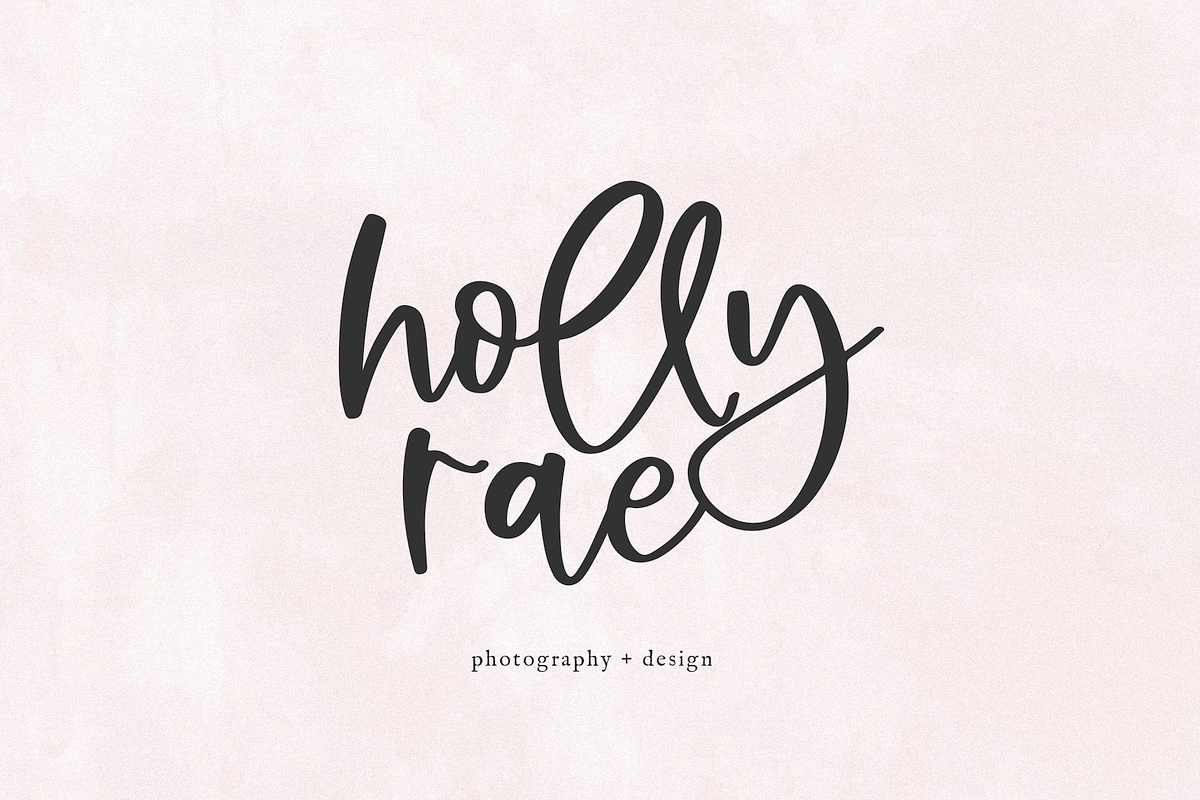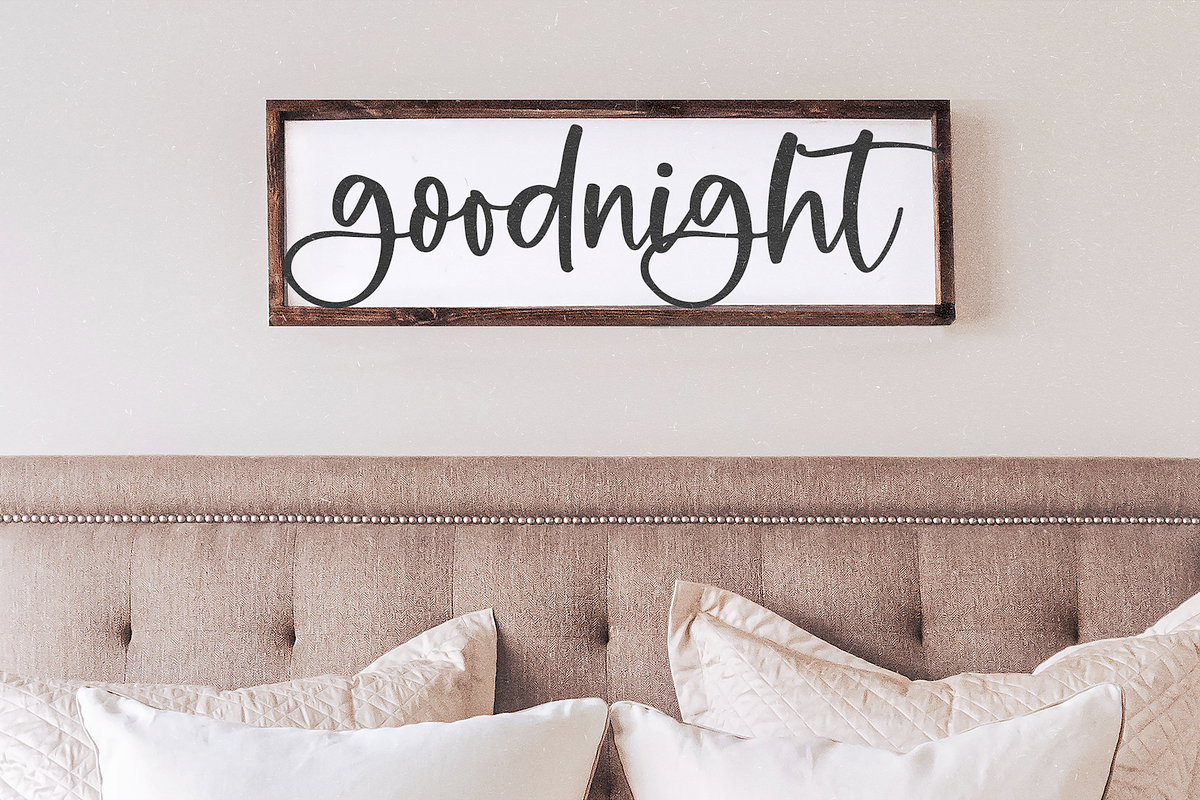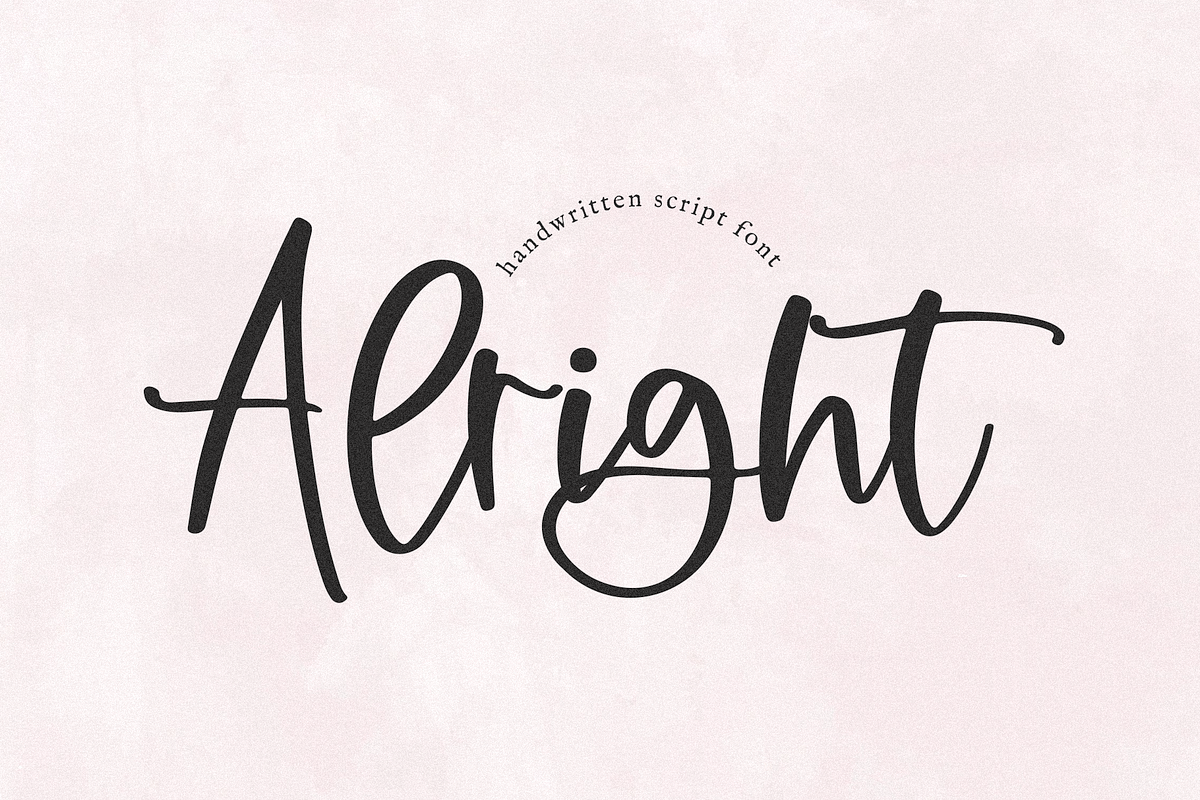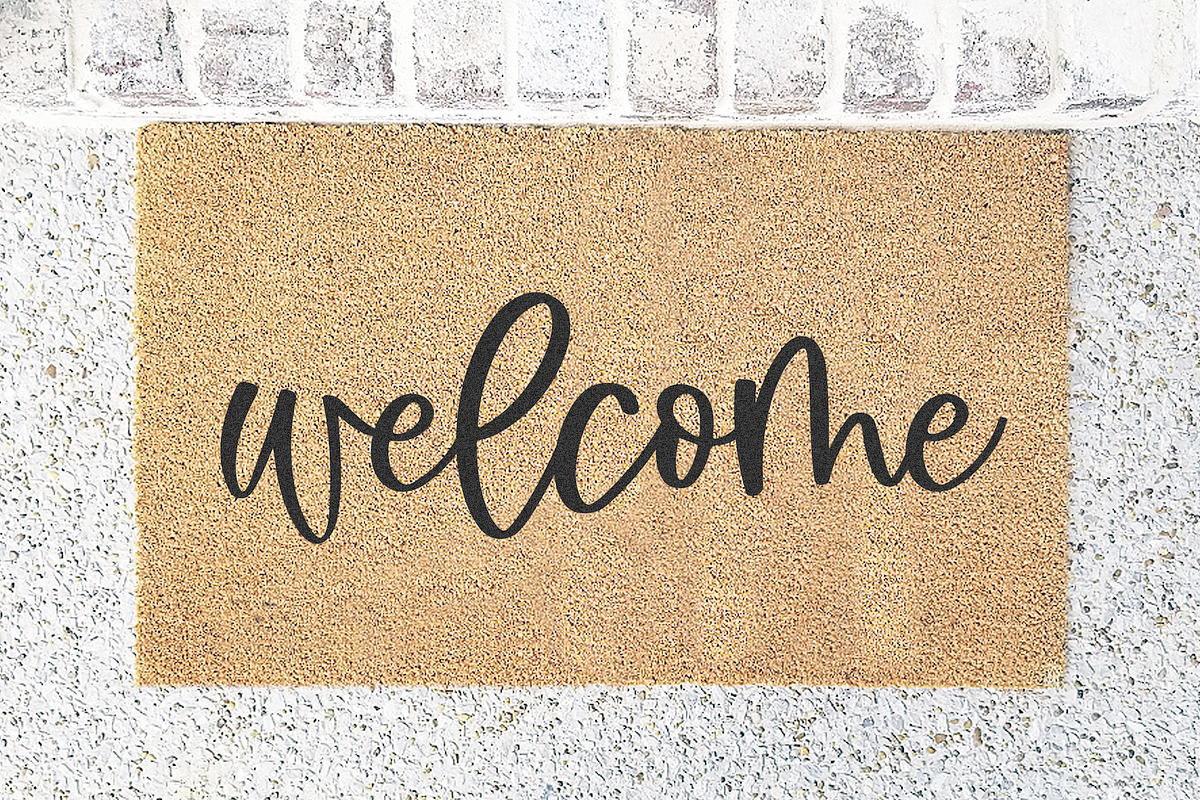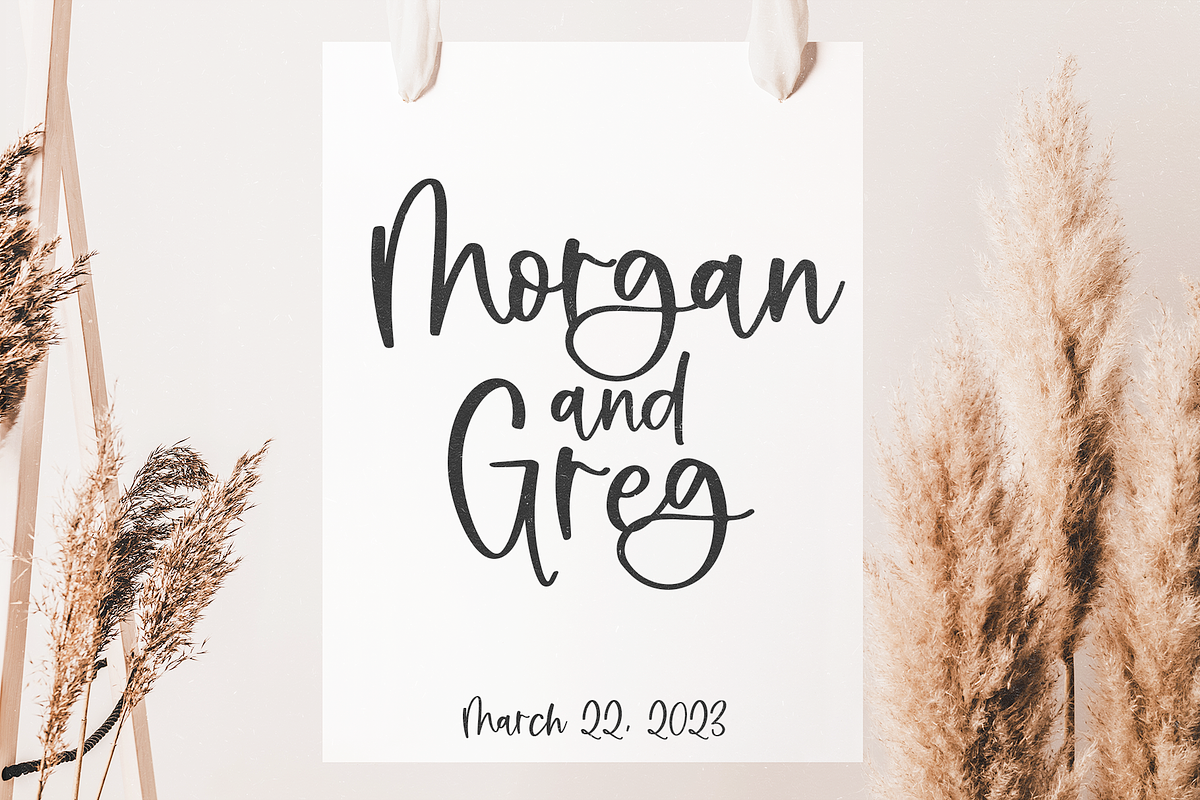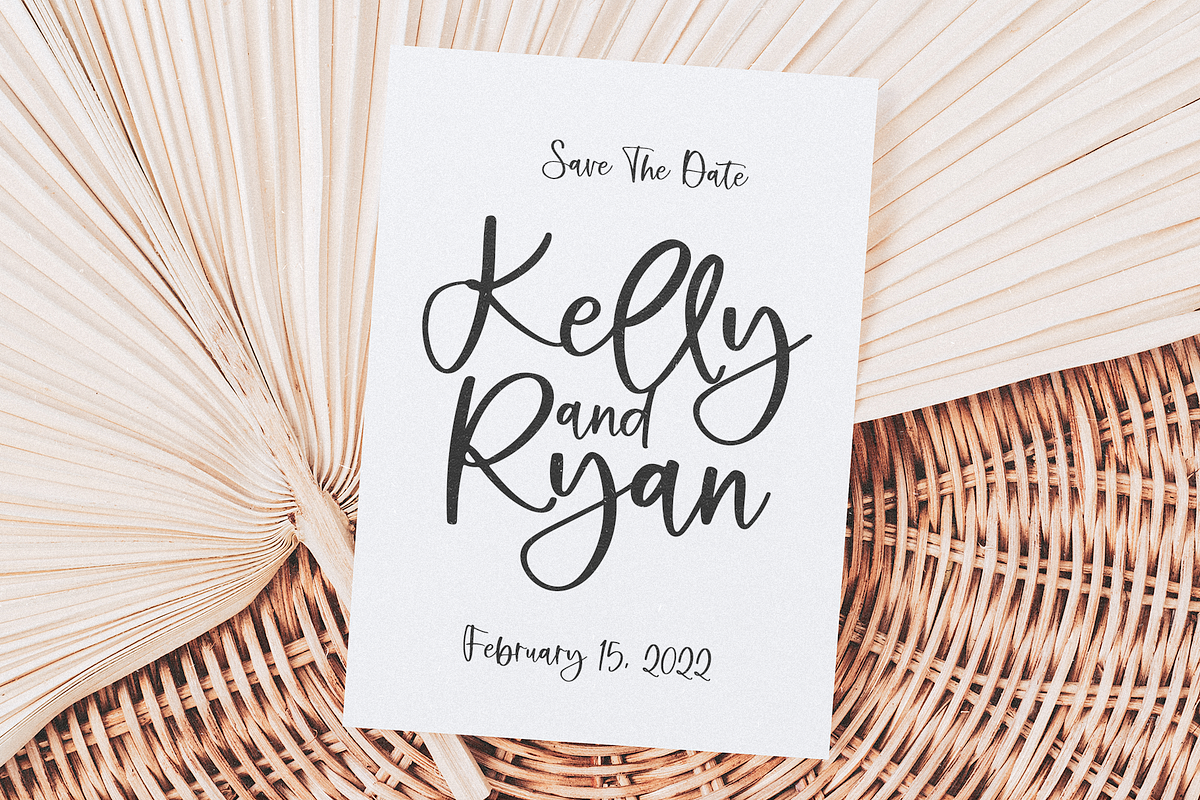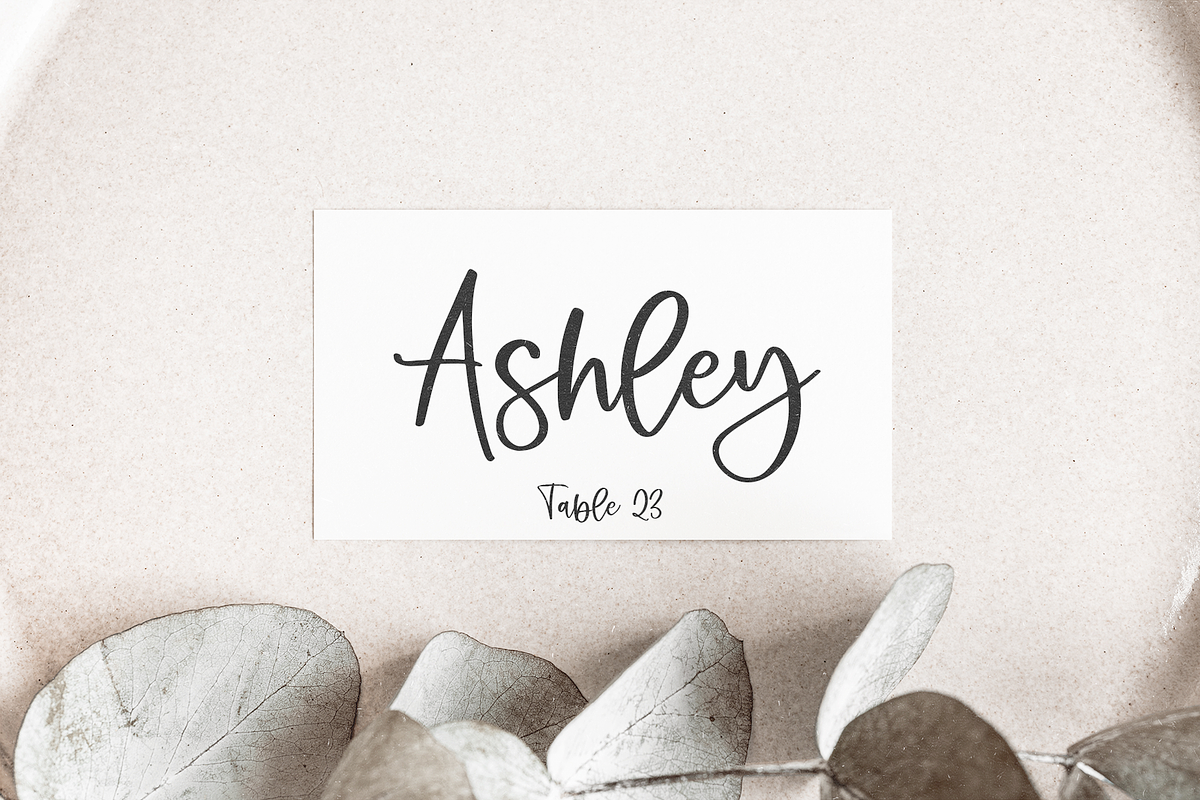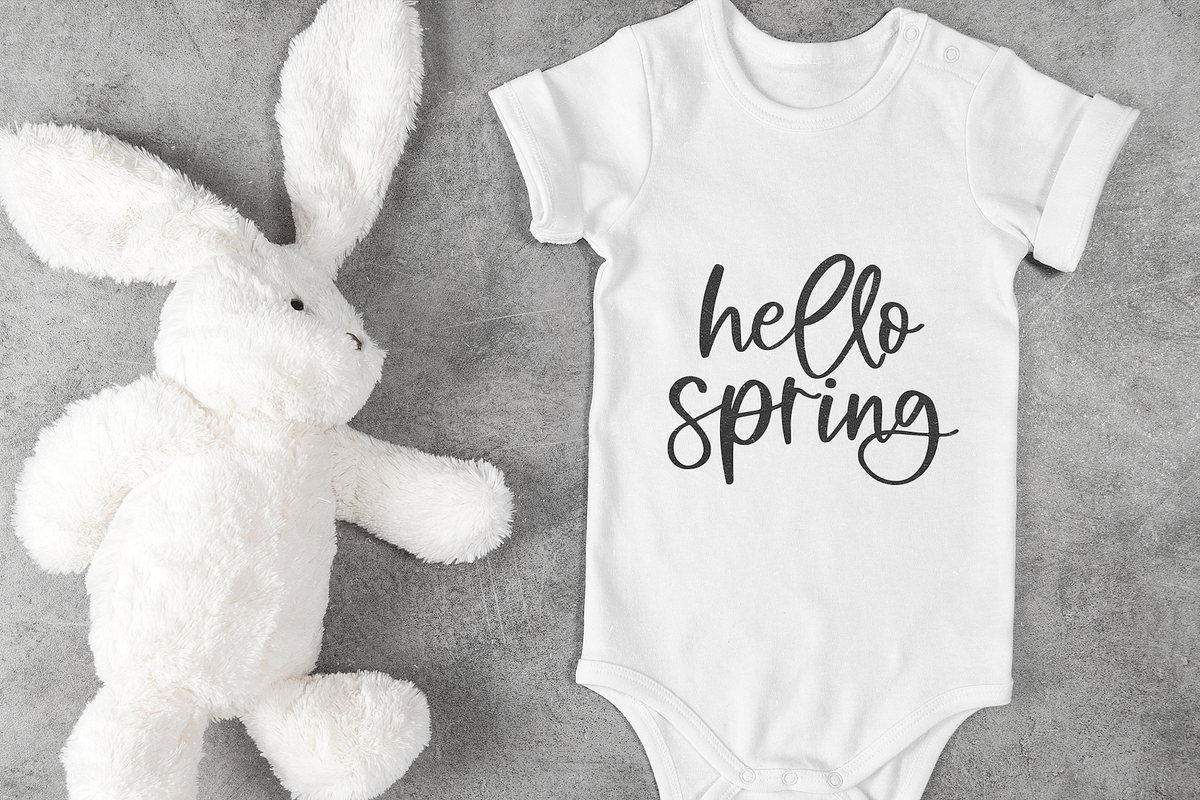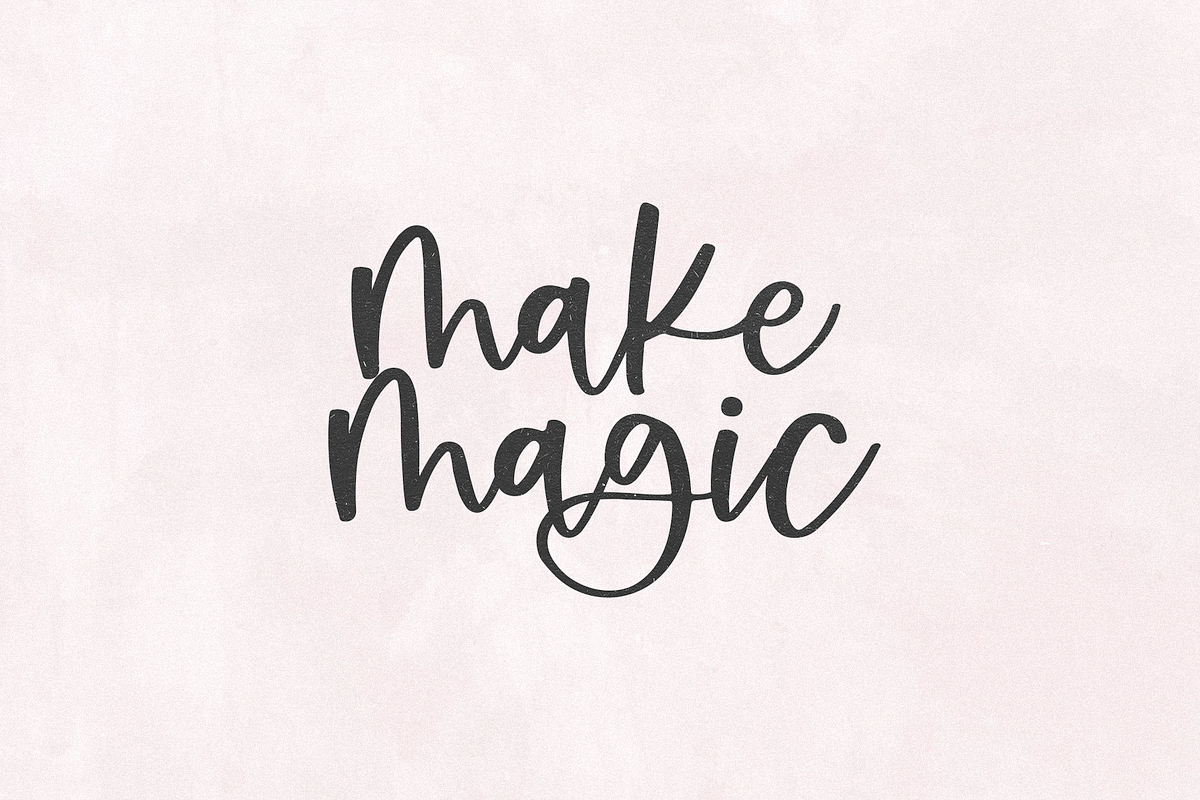
Alright | Modern Script Font
Alright is a handwritten script font with a modern look!
This font is perfect for signs, shirts, crafts, farmhouse decor, doormats, procreate, cricut projects, branding, blogs, logos, invitations and more!